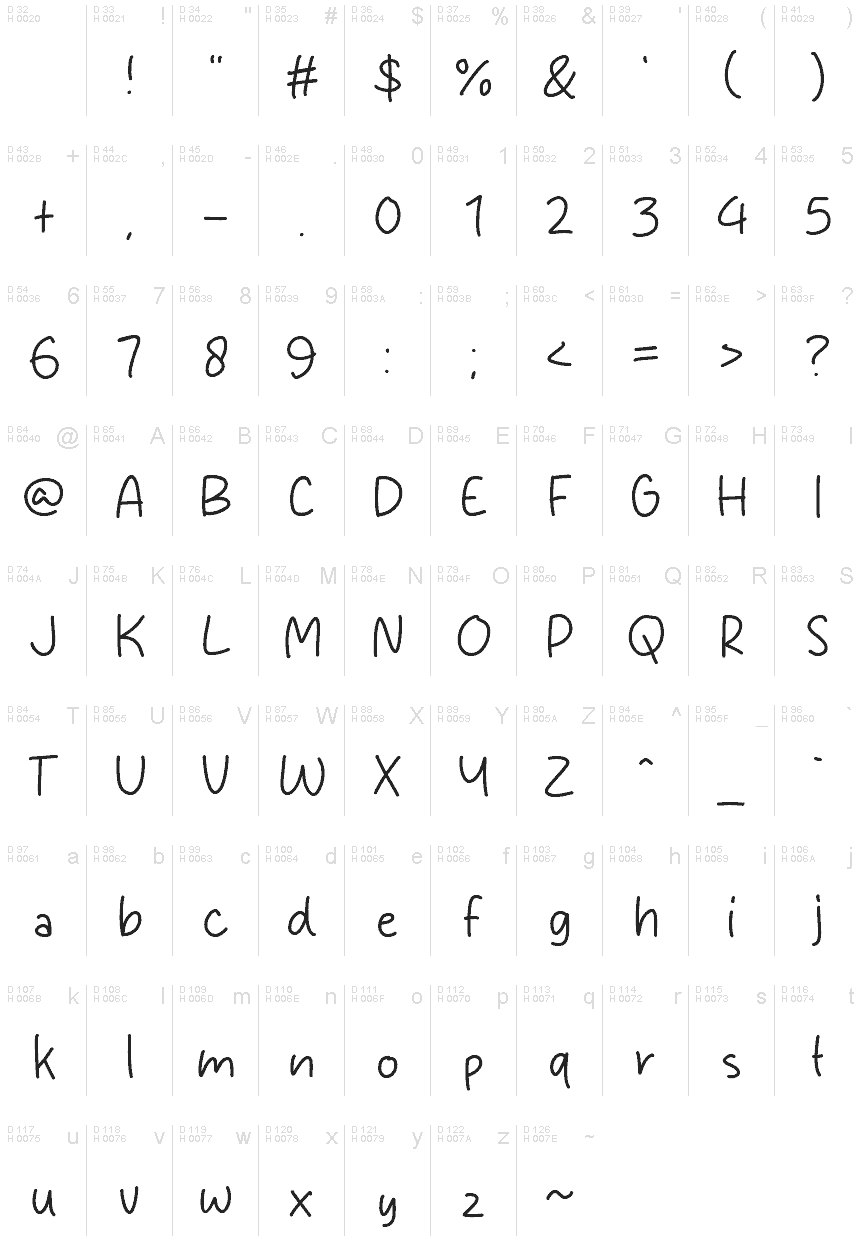
Mileas Curt
Mileas Curt font is another outcome of handwritten inspiration but from MJType this time. It is a font that is characterized by its casual and approachable appearance thanks to its relaxed, smooth, and often connecting character glyphs. Its contemporary style will be appreciated by those looking for notice-me typography with a touch of elegance.